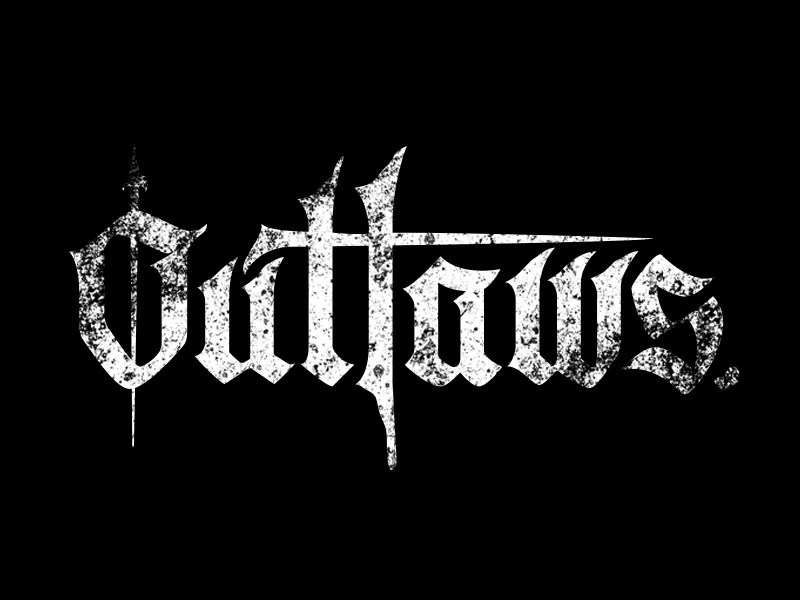
Review Of Outlaw Fonts 2022
The bold font à € by new. It will look great on every poster, banner, or print you wish to create. Based on a type style commonly used on advertising and wanted posters of the 1800s.
The Outlaw Font Was Designed By Billy Argel.
Outlaw font family was designed by britton walters and published by nerfect. Please note that the rough imperfections and slight misalignments in th We have everything from tattoo fonts to script, old.